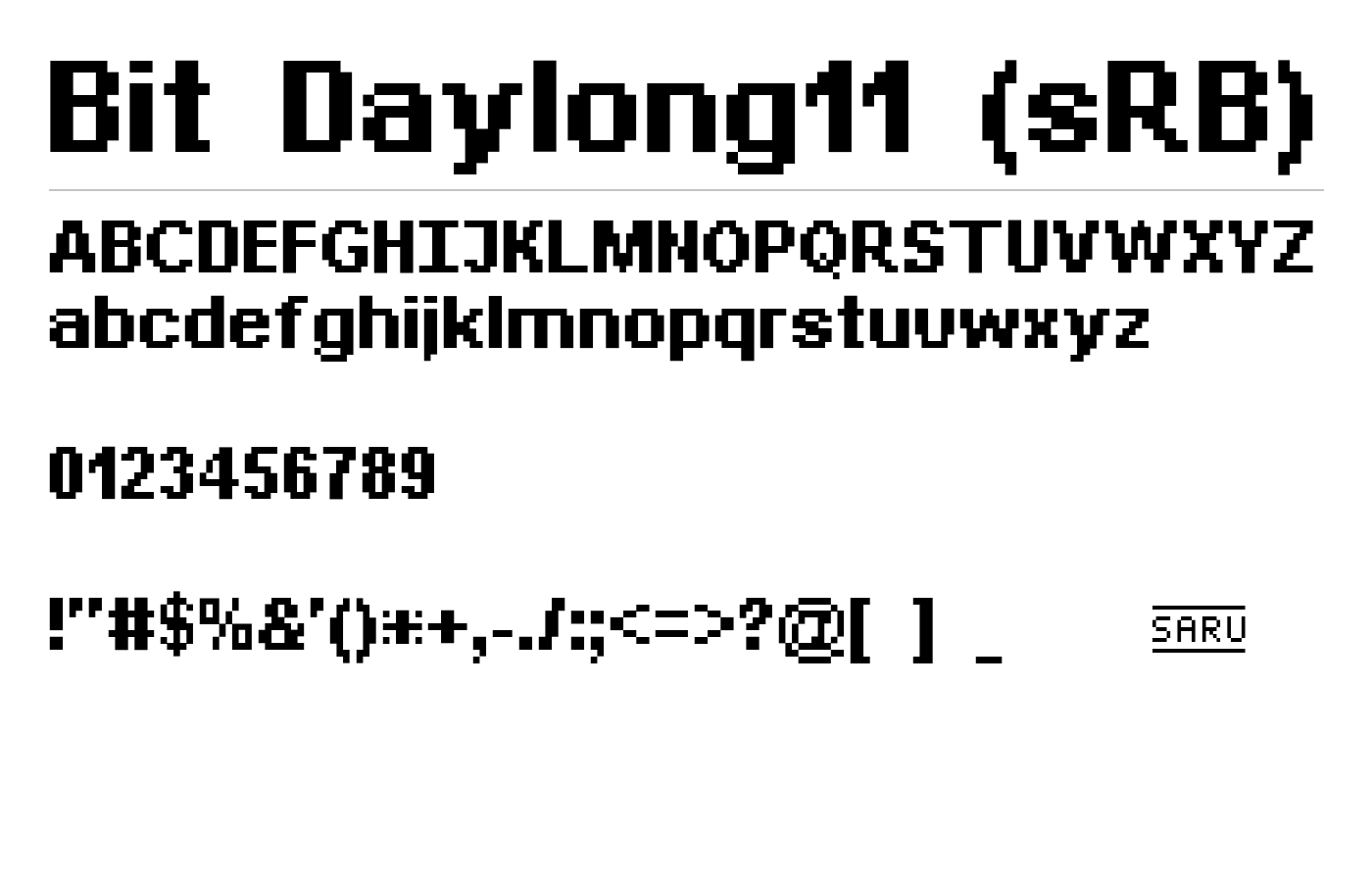
Bit Daylong11 (sRB) is a pixelated, sans-serif font with a bold and blocky style that captures a retro, digital vibe reminiscent of early computer and video game text. Its monospaced, uniform letterforms with sharp edges and low contrast make it ideal for tech-inspired designs, pixel art, and projects seeking a nostalgic, playful, or utilitarian look. This font works well for headlines, logos, and screens where clarity and a vintage digital aesthetic are desired.
Bit Daylong11 (sRB) Font